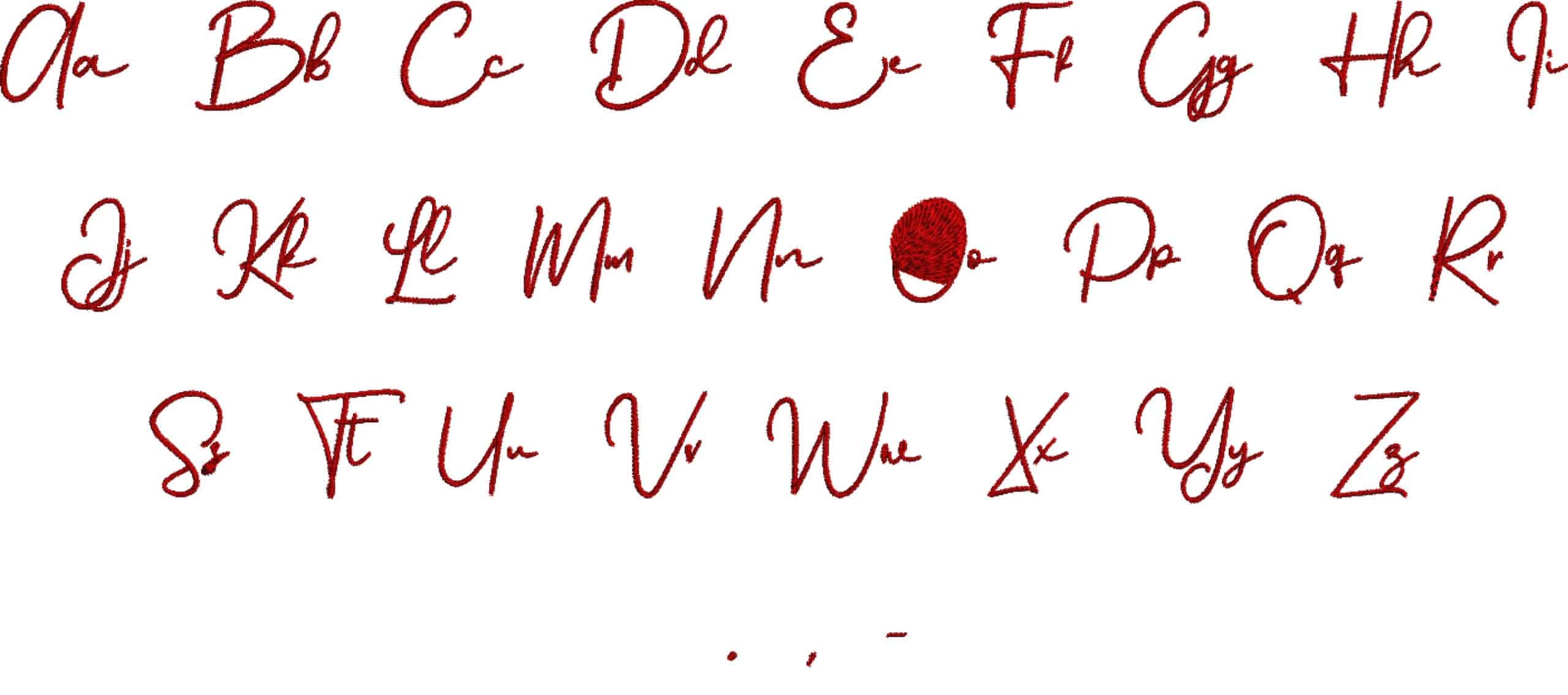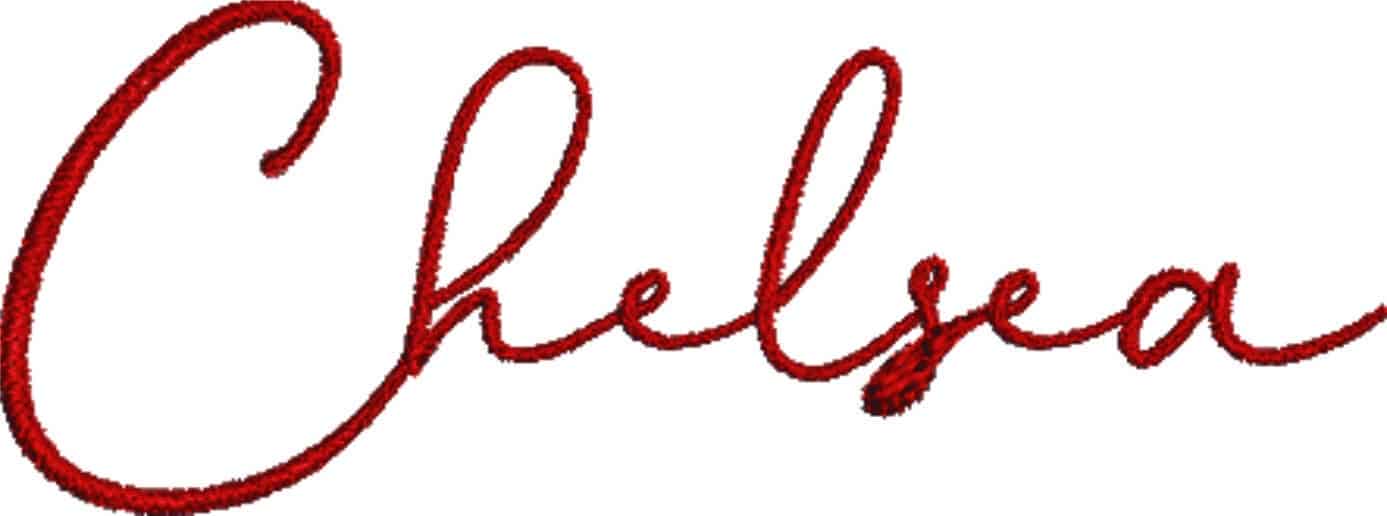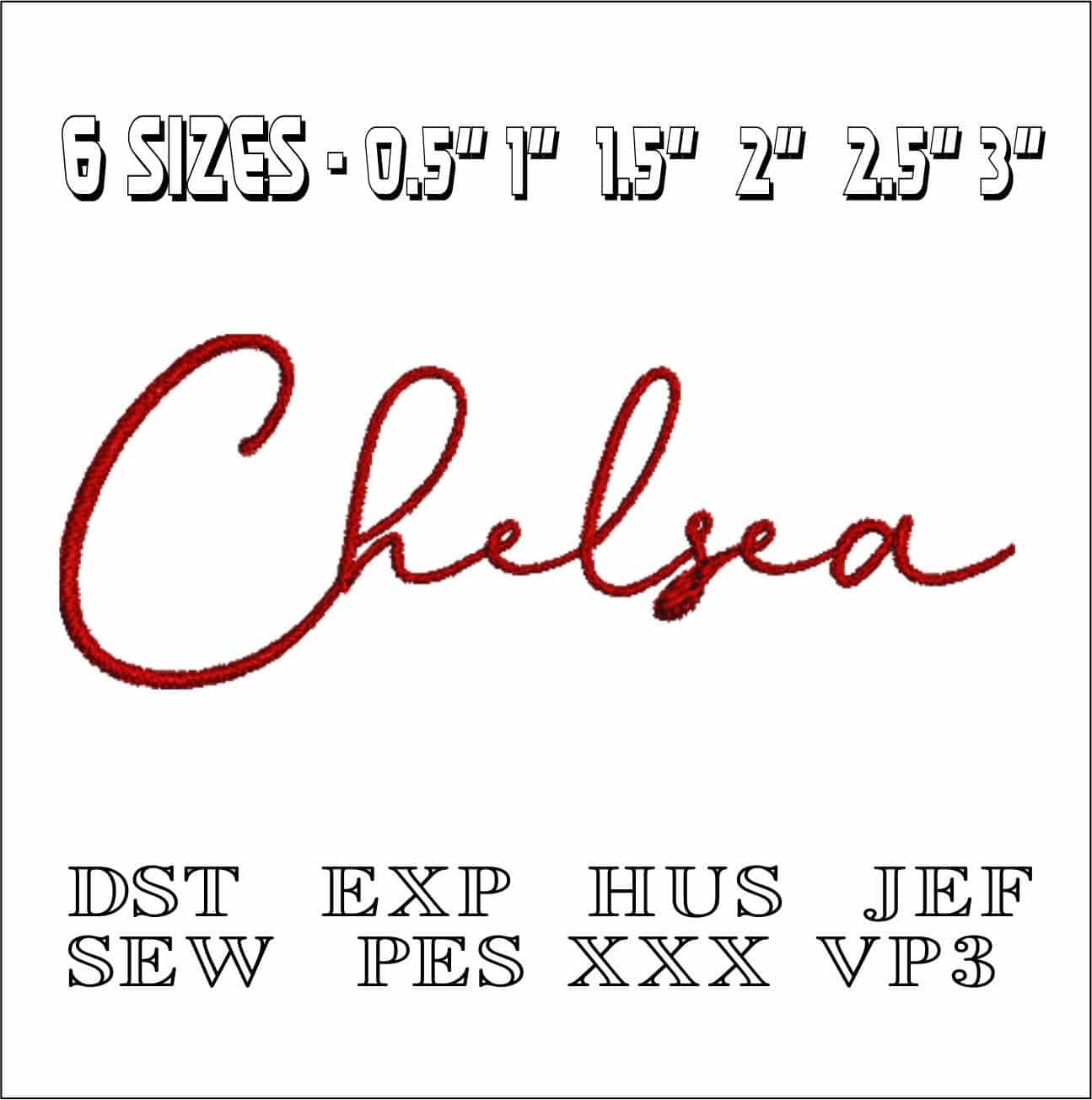
A clean, modern script alphabet for names and initials that gives babywear, gifts and everyday linens a polished personalised finish.
Add clean script charm to personalised stitching with the Chelsea embroidery font, a modern cursive alphabet shown with both upper and lower case letters in a smooth, readable hand. It suits makers who want names, initials and short words to feel soft and finished rather than blocky or formal. The letterforms have a flowing look, but each character is still distinct enough to keep custom text easy to read.
This is a strong choice for monogramming baby grows, bibs, blanket corners and christening keepsakes, and it also sits beautifully on cotton tote bags, sweatshirt fronts and robe cuffs. On towels, napkins and pillowcases, the script brings a more graceful feel than a plain serif alphabet, especially for first names and paired initials. Because the style is modern rather than overly ornate, it works just as well for everyday personalisation as it does for gift stitching.